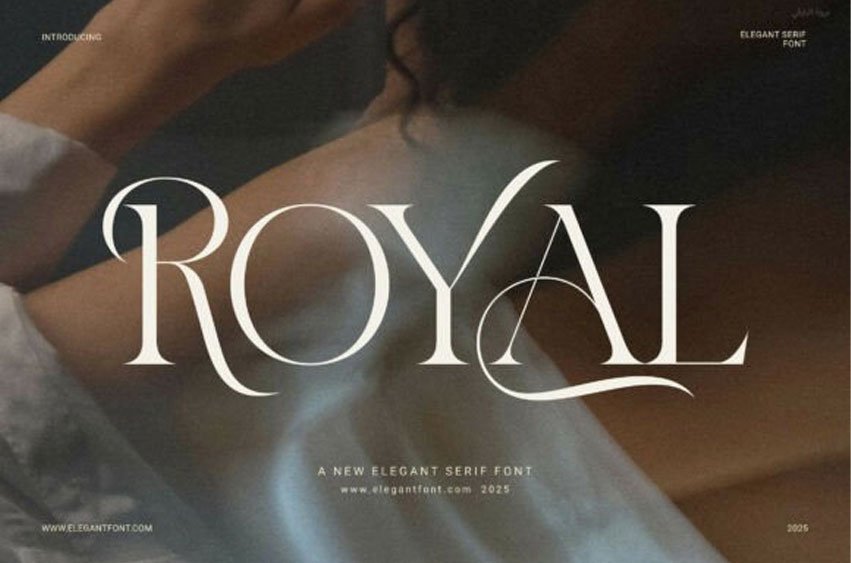
Royal Elegant Font is a stylish, modern serif typeface designed to bring elegance and clarity to your creative projects. With its clean lines and perfectly balanced letterforms, it offers a refined, high-end feel for both digital and print designs.
This font features smooth, functional ligatures that enhance the visual flow of your text. As a result, your designs feel more natural, polished, and professional. Whether you’re creating logos, editorial layouts, or product packaging, Royal adapts with ease and beauty.